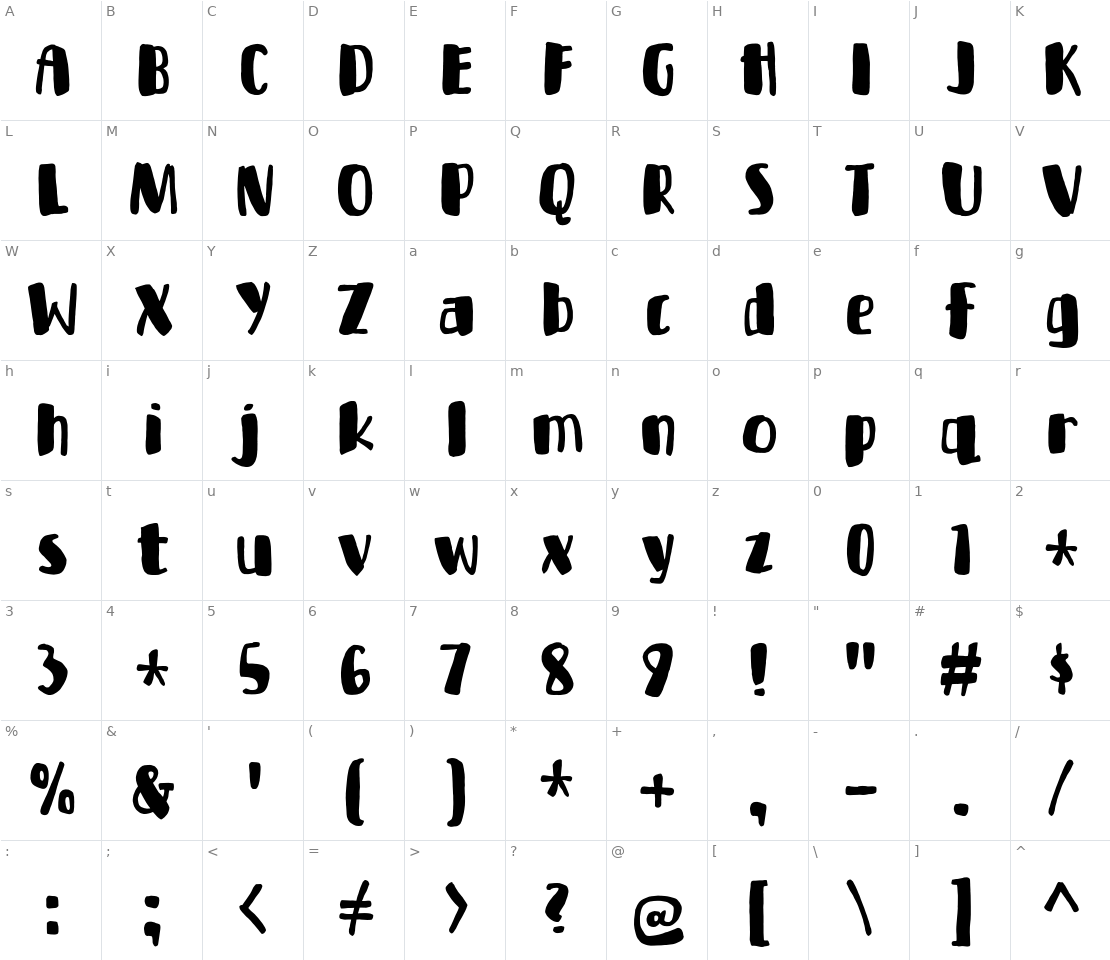
Bottle Party
Bottle Party is a thick, bouncy display face from Pizzadude with bold letterforms that feel like they belong on a birthday invitation or a cartoon title card. The strokes are heavy and casual, with just enough wobble to keep things feeling loose and fun rather than rigid. Built for headlines, posters, and party-themed designs where the type needs to be as loud as the occasion.